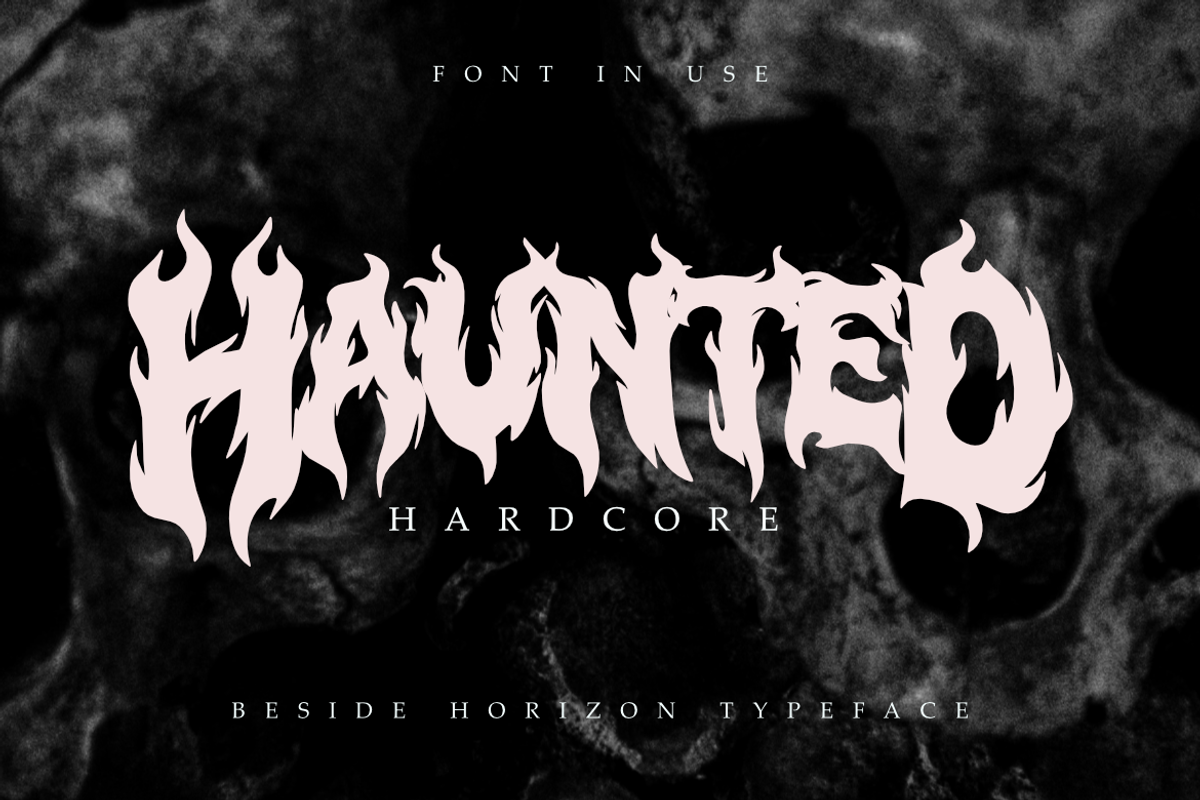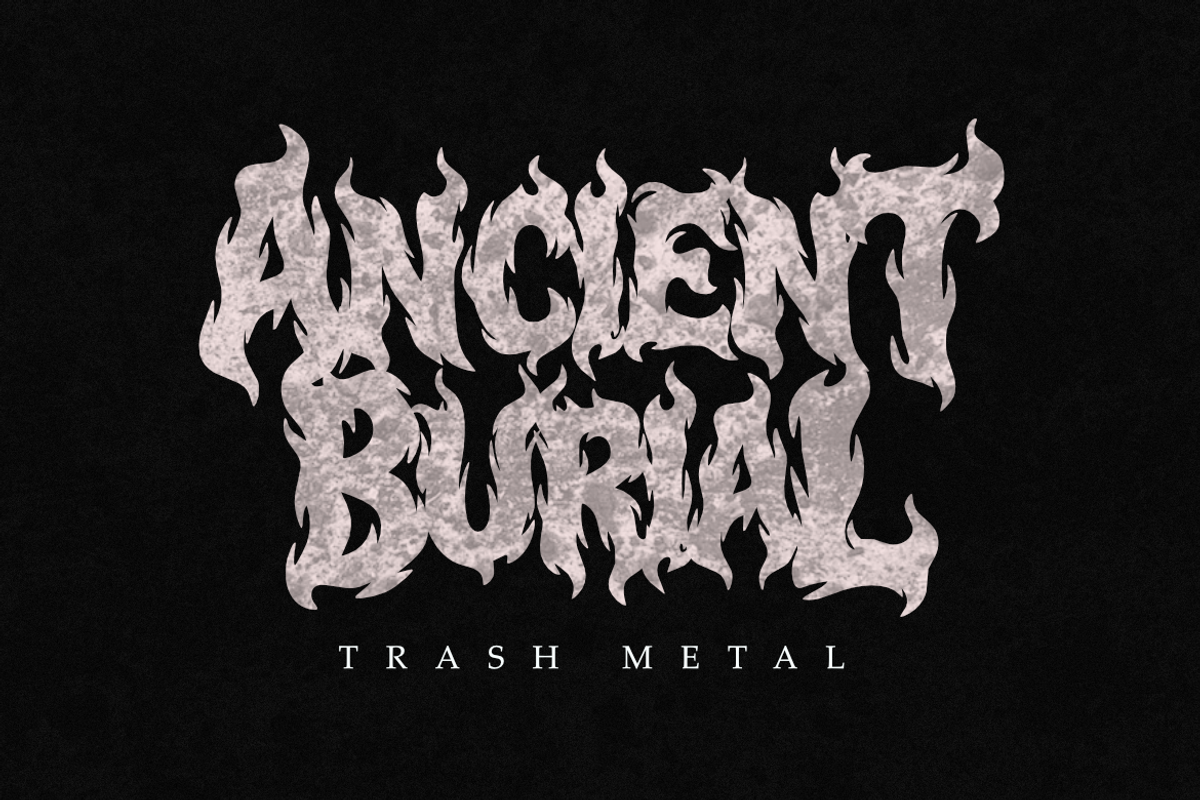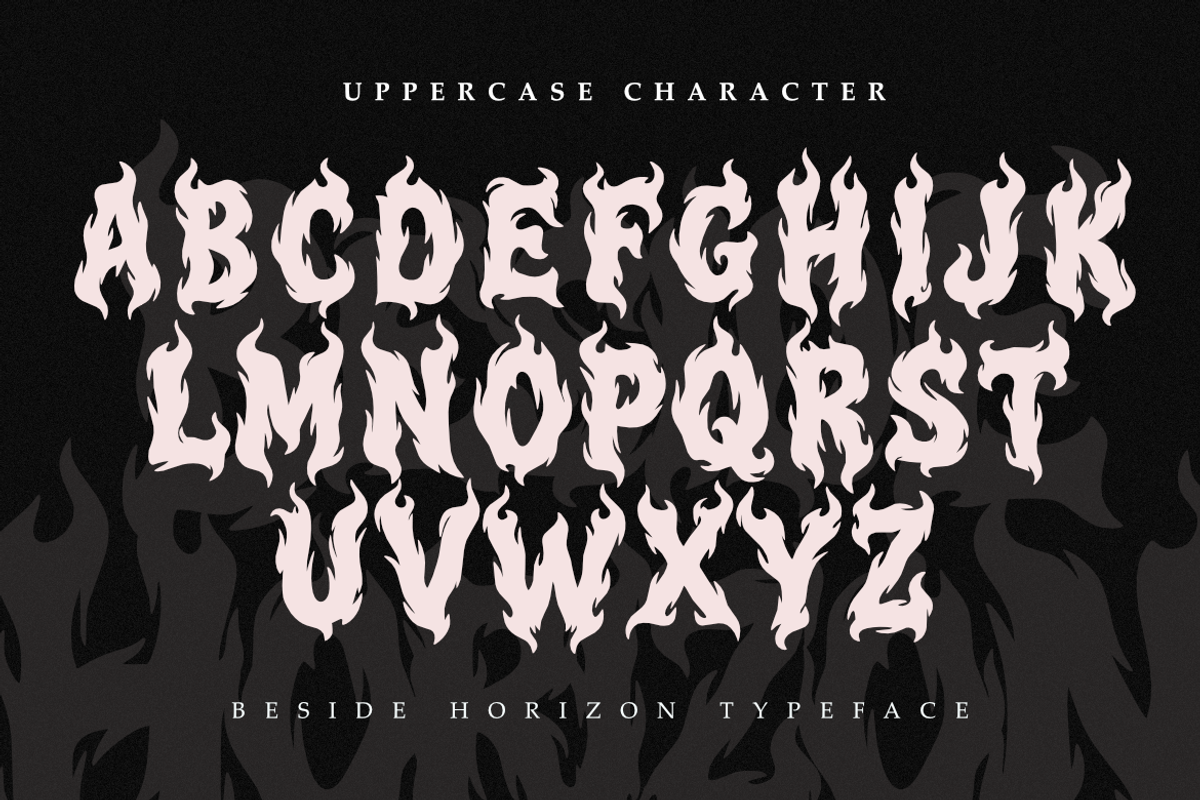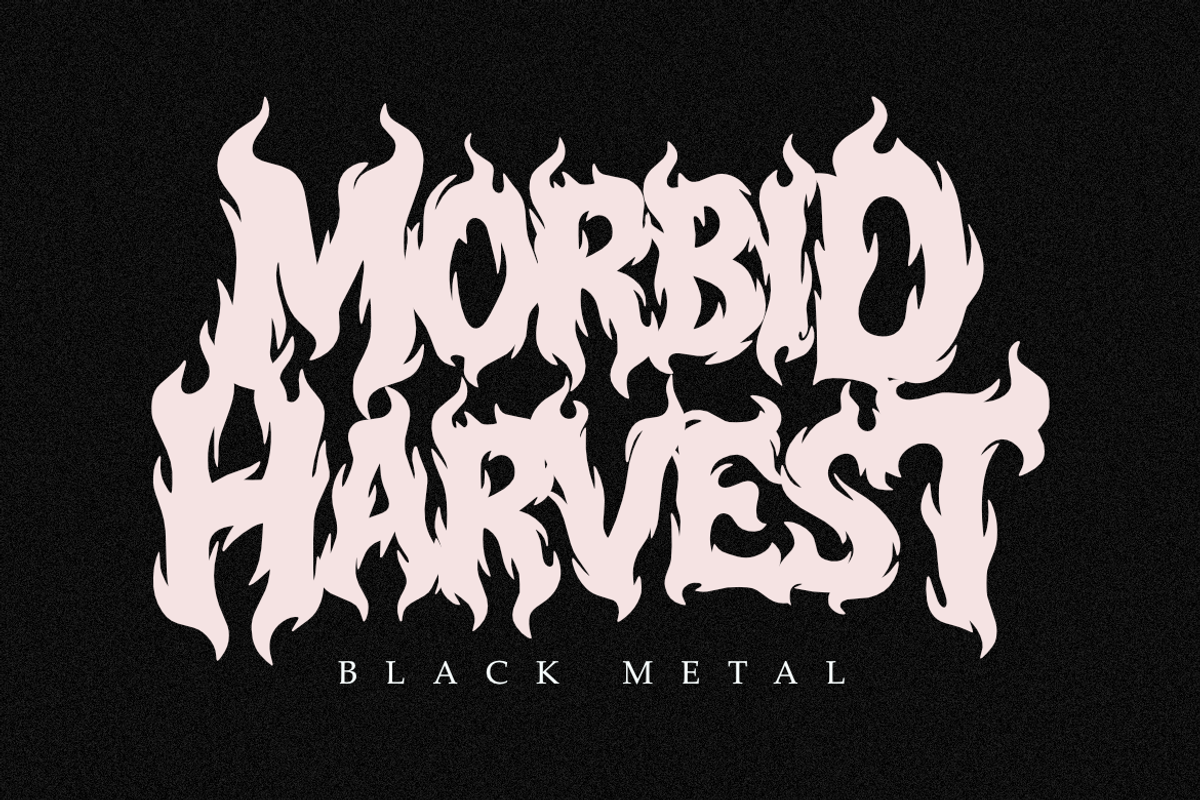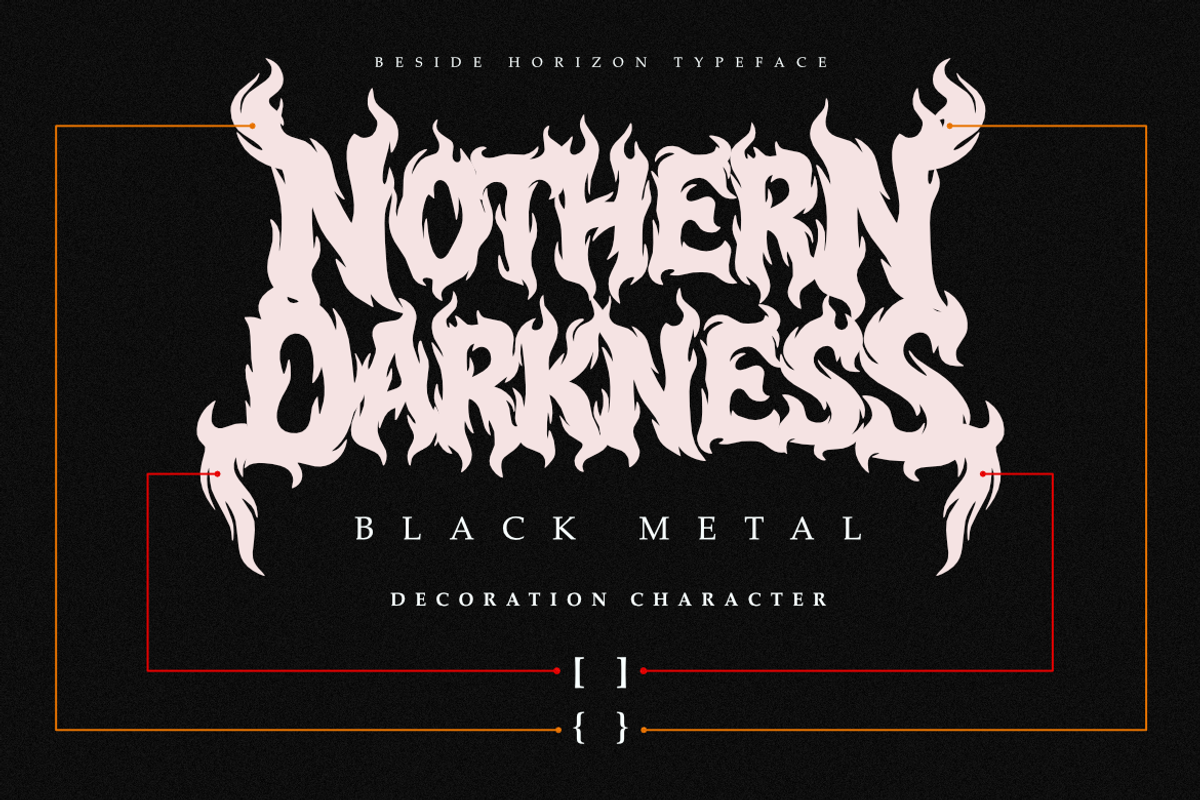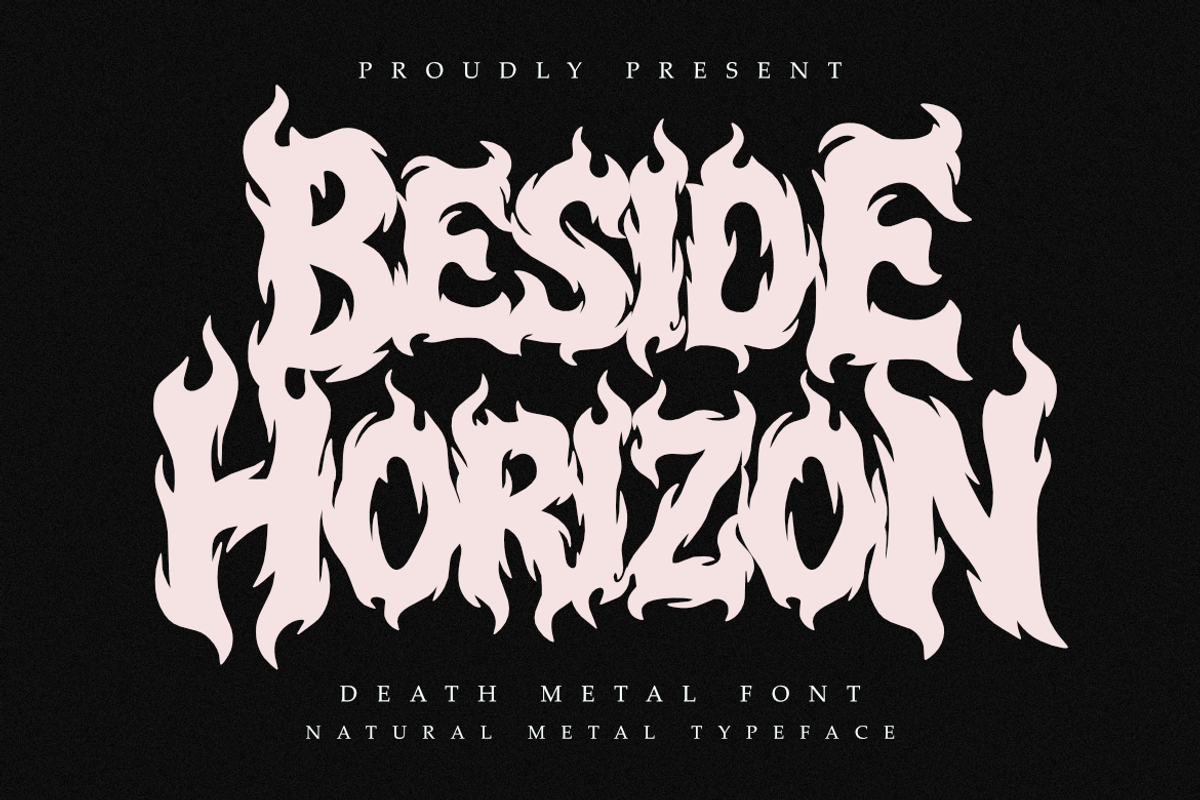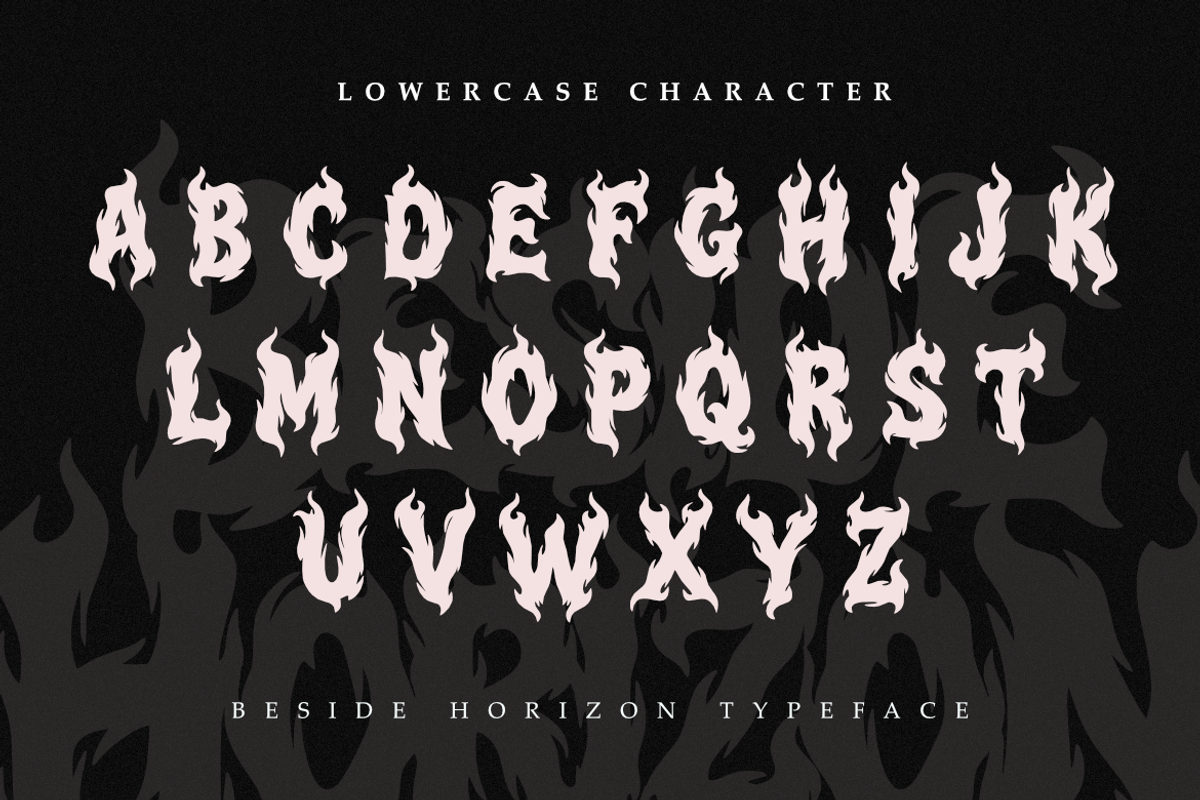
Beside Horizon | Natural Death Metal
Beside Horizon | Natural Death Metal Font
Elevate your extreme design projects with Beside Horizon, a sophisticated natural metal typeface meticulously crafted for precision and impact. Blending the raw, fluid energy of fire with clean, professional lines, Beside Horizon provides a premium edge to your visual identity.
Whether you are building a brand for a streetwear label, designing immersive album layouts, or creating polished promotional materials, this font delivers a sharp, professional finish. Its aggressive curves and organic silhouettes ensure that your message commands attention in both digital and print environments.